Font Typesetting Function 06: “Proportional Metrics”
[Proportional Metrics] in InDesign/Illustrator is a function to narrow the character based on the character width information that fonts have for typesetting with narrowed spacing between characters.
The feature tag is palt for horizontal typesetting, which is a shortened name for “Proportional Alternate Widths.” I read palt as “P aruto.” Some read it as “P ɑ:lt,” which sounds more English. I also heard that some people say “Paruto.” All of these are okay.
The feature tag of proportional metrics for vertical typesetting is vpal (Proportional Alternate Vertical Metrics). I just call it “vpal” without any twist.
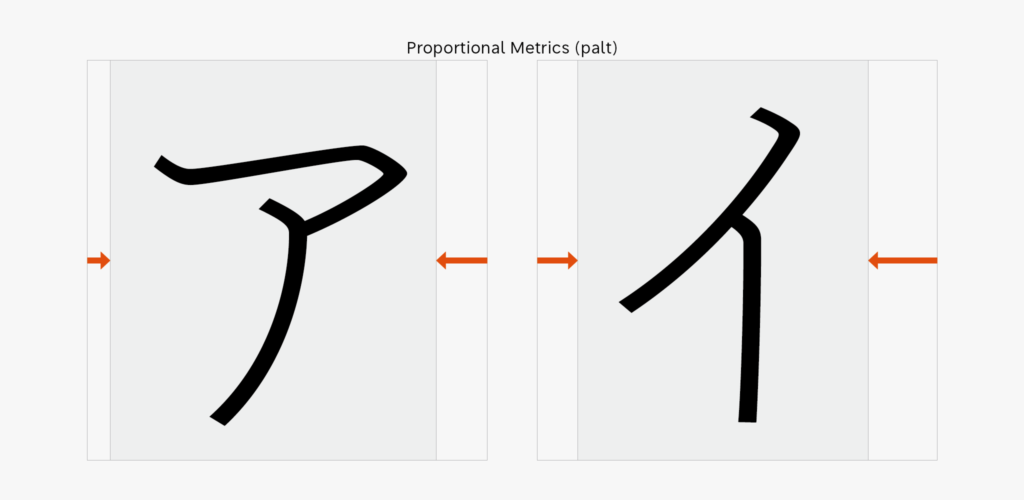
The purpose of narrowed spacing between characters by proportional metrics is to artificially achieve proportions similar to Latin by adjusting the side bearing of Kana, etc. designed within the square frame. If we are dealing with horizontal typesetting, each side bearing on the left and right is independently adjusted. That value is set in advance by the font maker, and stored in the font.